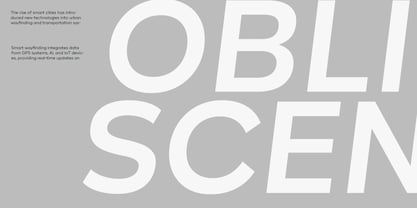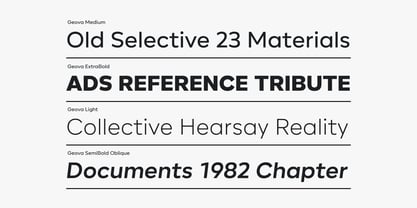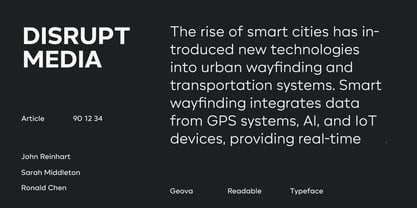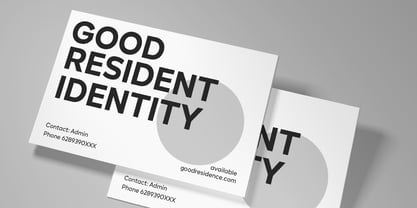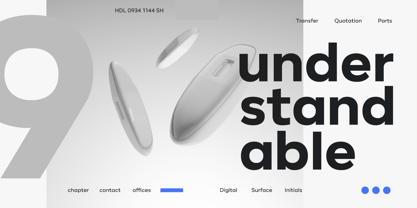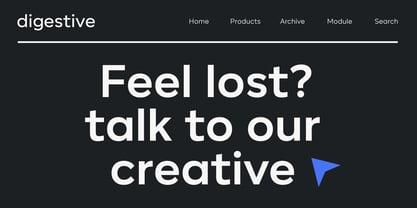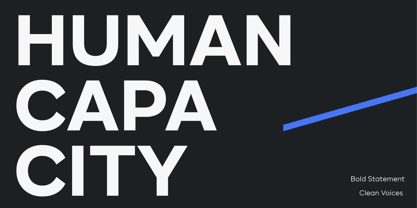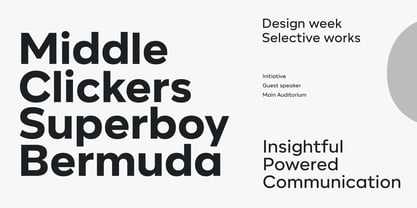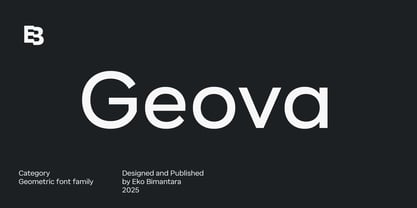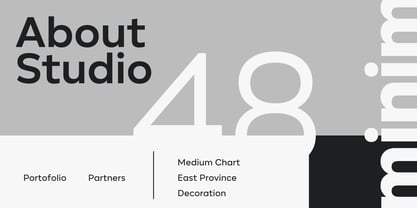
Geova
by Eko Bimantara
The Geova Font Family was designed by Eko Bimantara and published by Eko Bimantara. Geova contains 18 styles and family package options.
Geova is a geometric sans font family with a humanist touch in its letter proportions, offering a clean and versatile design that works seamlessly for both display and text. Its adaptability makes it suitable for a variety of design themes, including corporate, enterprise, contemporary design, product, brand, and functional design. Perfect for use in large sizes, titles, headers, websites, brand identities, product packaging, and a broad range of graphic design and creative purposes, Geova’s balance of geometric precision and humanist warmth ensures it fits effortlessly into any project.
About Eko Bimantara
Eko Bimantara is a type designer from Indonesia. Always has an intention to creating fonts that not only look great but also perform across a wide range of mediums and also across wide range of theme. The goal is to give designers the tools to make their projects that speaks a lot with various expression. Eko Bimantara’s fonts are featured in everything from corporate identities to street art posters, and have numerous ideas and concept ready to expand for fresh fonts for years further.